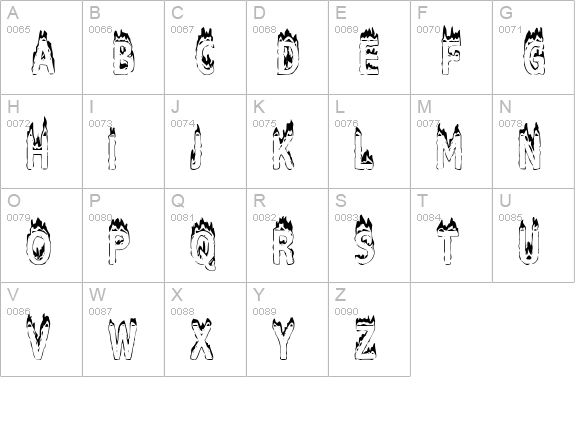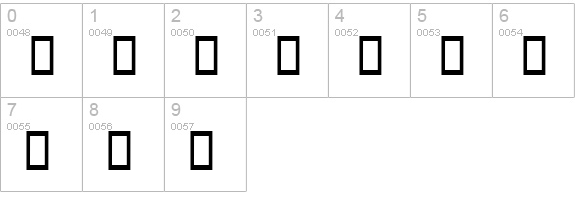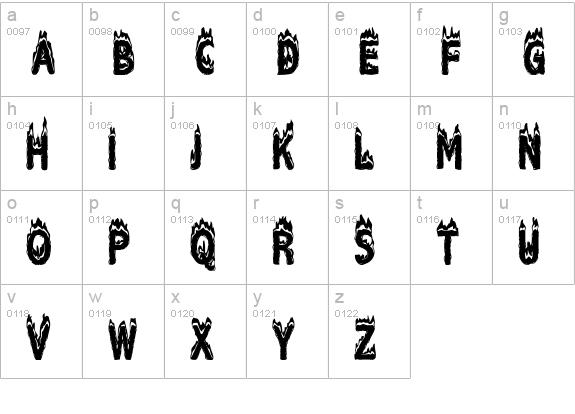
Plastic Explosive font is a vibrant and explosive typeface that will make your designs pop with excitement. Its bold and edgy letterforms are reminiscent of the powerful impact of plastic explosives, adding a dynamic and energetic touch to any project. This font is perfect for grabbing attention and making a statement in titles, headlines, logos, and posters. Whether you need to create eye-catching advertisements or design attention-grabbing packaging, Plastic Explosive font will ignite your visual creations with its explosive character. What sets Plastic Explosive font apart is not only its striking appearance, but also the fact that it is available for free! That's right, you can easily download this explosive font at FontsMarket.com, without having to worry about breaking your budget. Its freely available nature makes it accessible to designers, creatives, and enthusiasts alike, allowing everyone to harness the explosive power of this unique typeface. With Plastic Explosive font, you can unleash your creativity and create designs that leave a lasting impact. So why wait? Download this explosive font today and add a touch of dynamism and energy to your design projects. Let the power of Plastic Explosive font give your visuals the explosive boost they deserve!